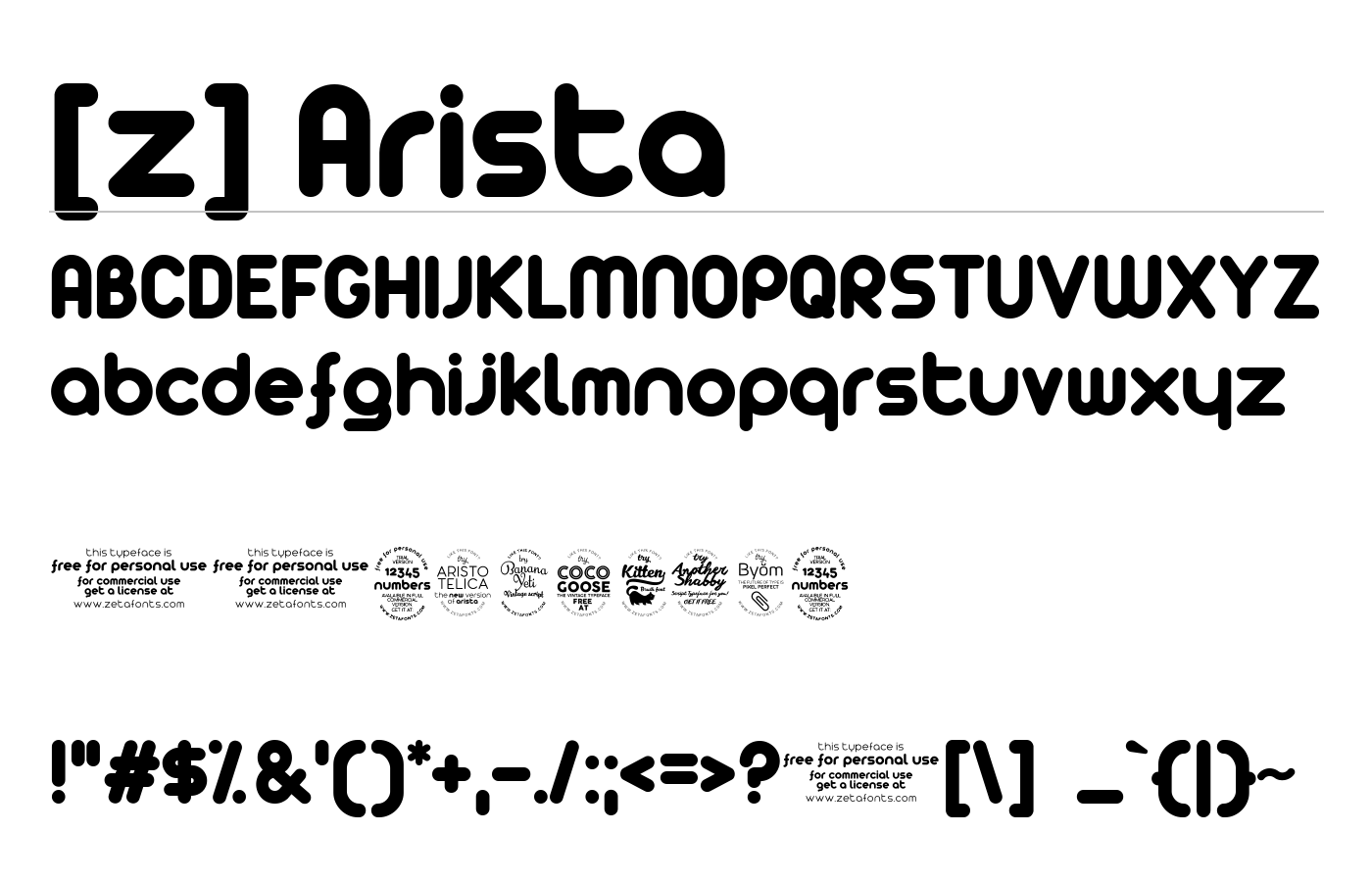
[z] Arista is a rounded sans serif font with a playful, friendly vibe, characterized by its bold weight and smooth, even strokes. Its geometric shapes combined with a high x-height make it highly legible and approachable, perfect for casual and creative branding or editorial use. This font works well for logos, headlines, and packaging where a modern yet inviting feel is desired.
[z] Arista Font
About [z] Arista Font
| Font family | [z] Arista Font |
| Designer | Francesco 'Mistico' Canovaro - Adolfo Monti |